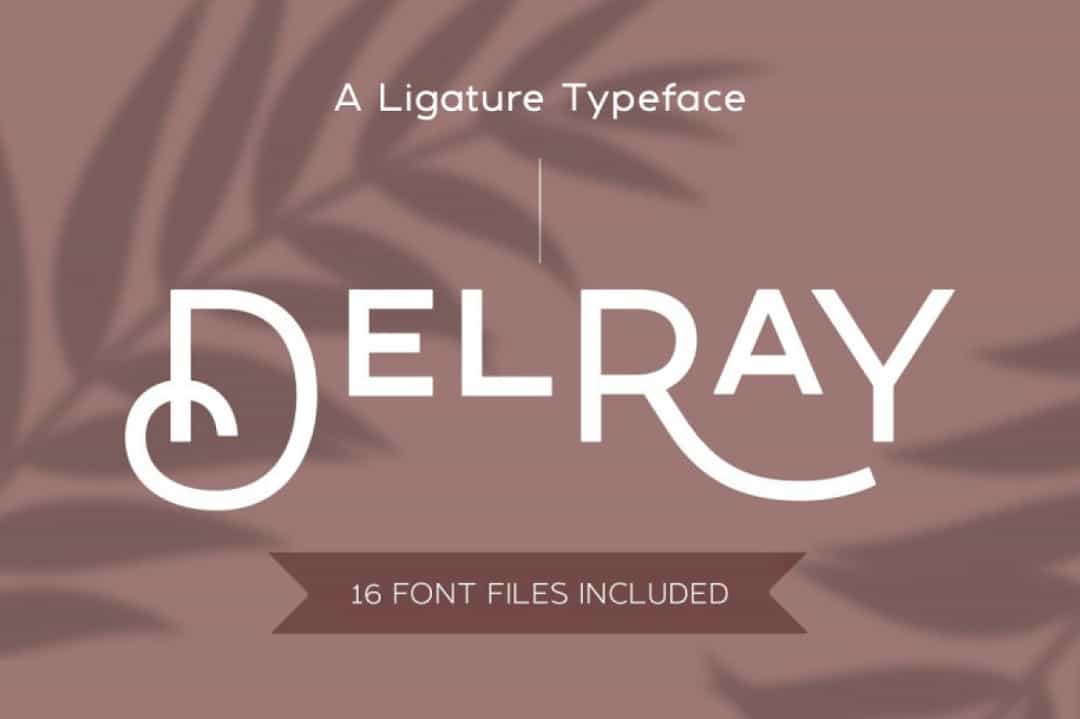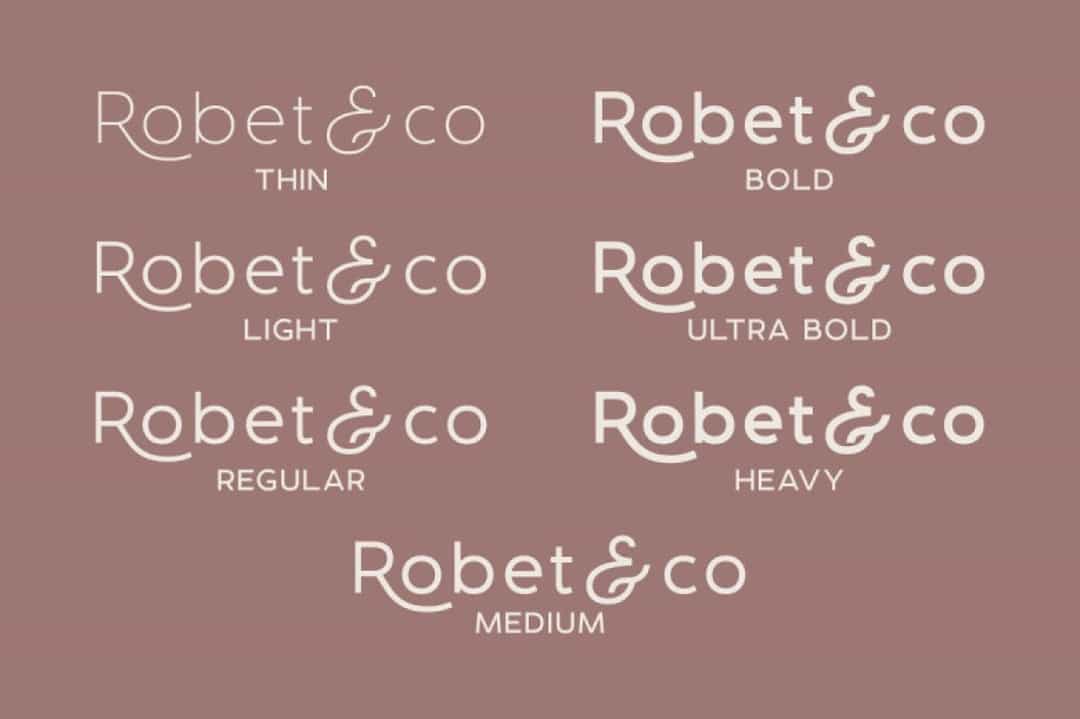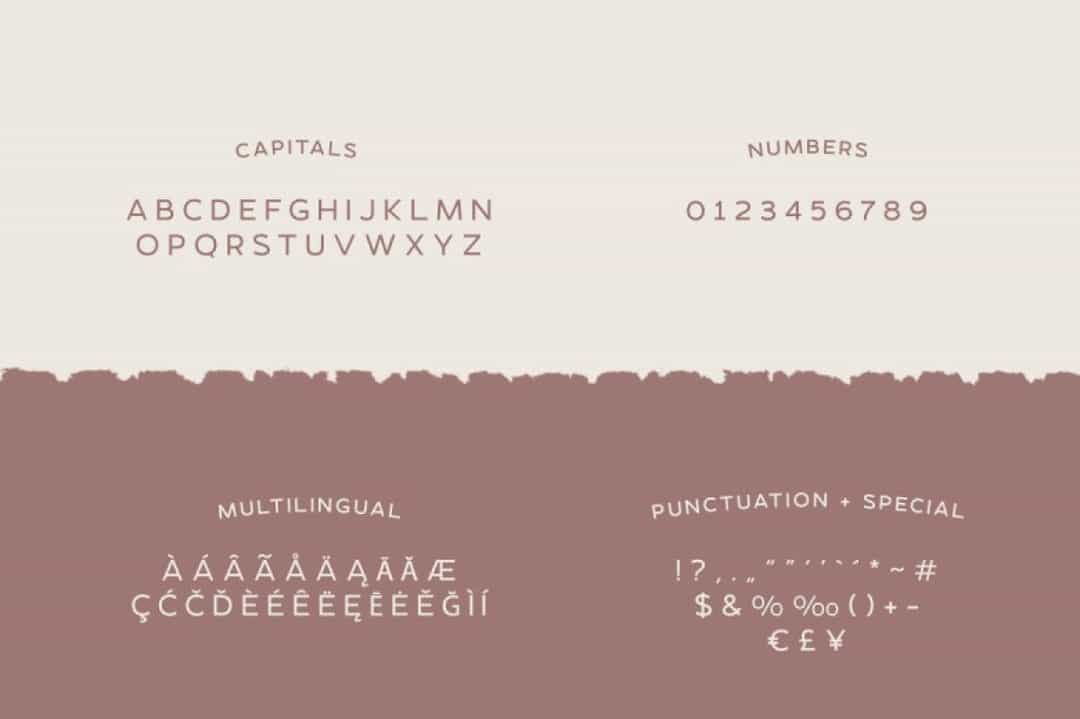
DelRay is a versatile ligature-filled sans serif font featuring seven weights, italics and mutable font! Adding excitement to any collection, DelRay includes multilingual characters with elevated capitals or stylized underdots as alternative characters.